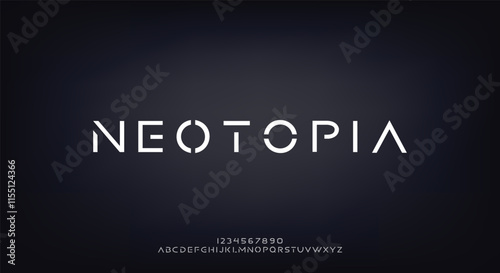
Geometric futuristic alphabet, robotic stencil letters, abstract font for minimalistic clean logo, unusual innovative headline, minimal simple typographic design. Vector typeset